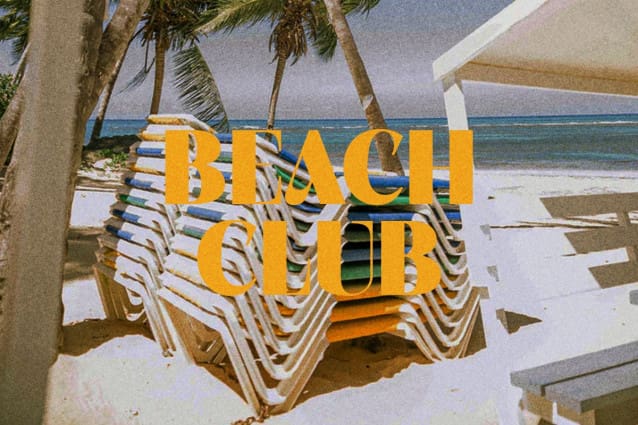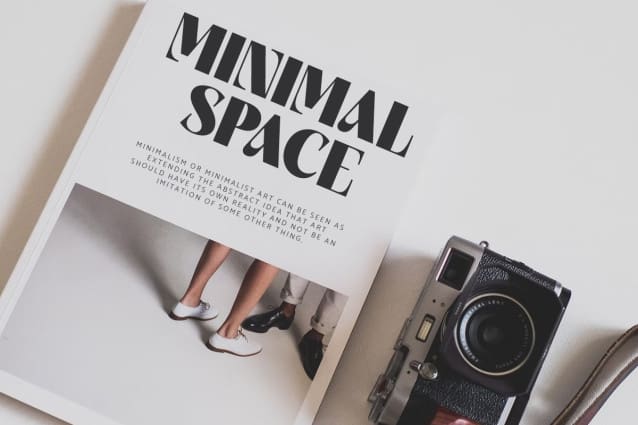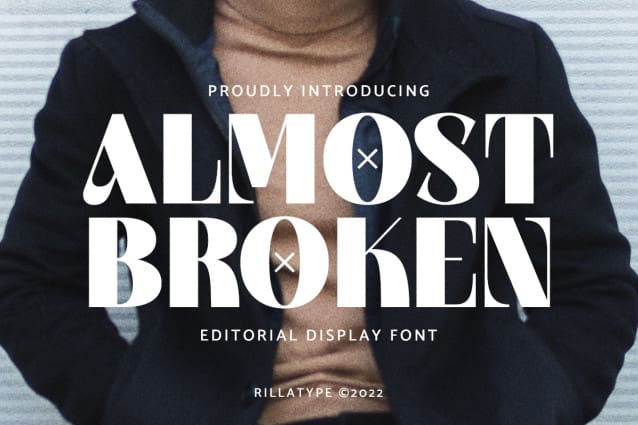
Almost Broken Font
Almost Broken is a modern display font with bold and strong personality but charmful. this font comes with two version, regular and slanted.
AlmostBroken is perfect for headlines, logotypes, magazine, advertising, etc. this font also comes with multilingual support.